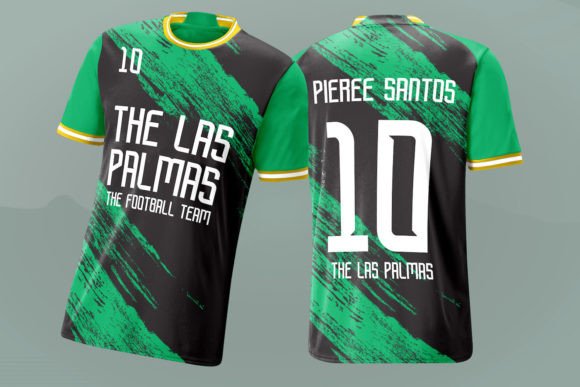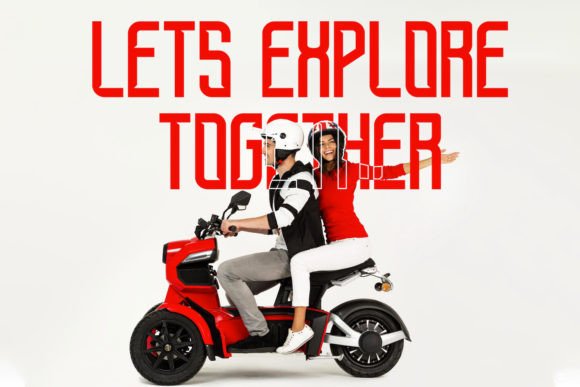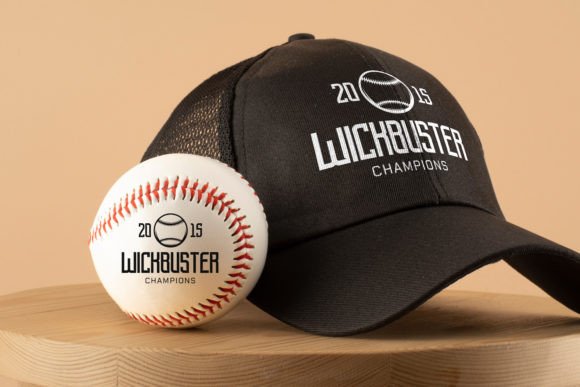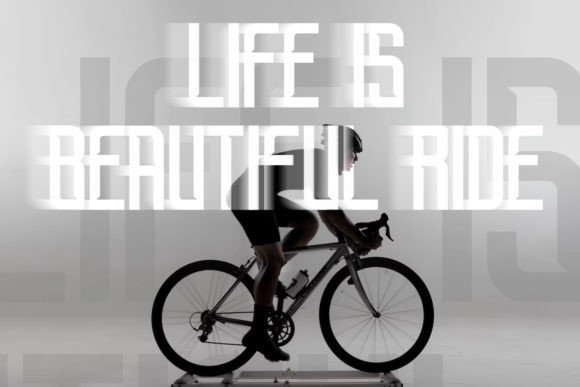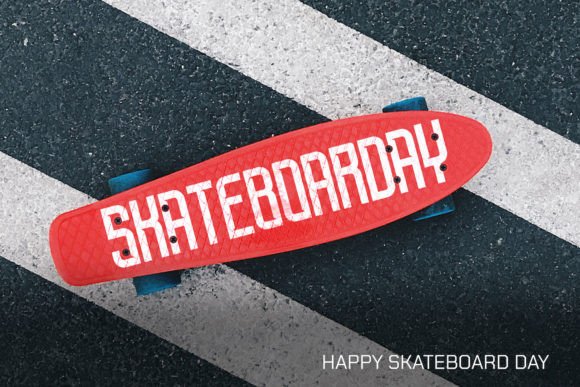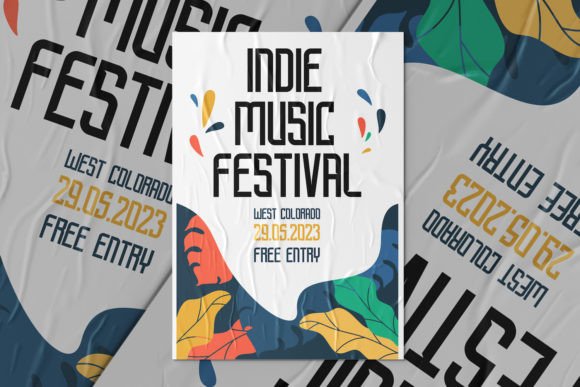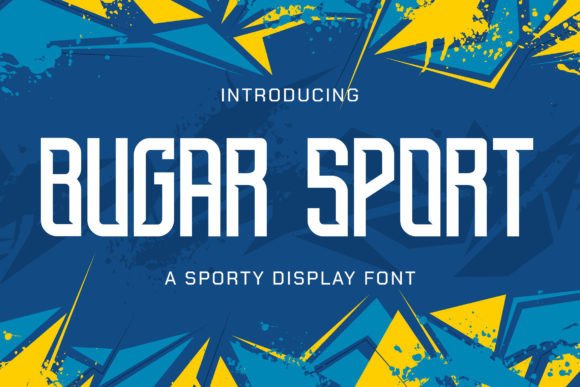
Introducing Bugar Sport – The Ultimate Sporty Display Font
In the world of design, fonts play a crucial role in conveying the message and tone of a project. For sports-related designs, a font that exudes energy, dynamism, and modernity is essential. This is where Bugar Sport comes in – a sporty and modern display font designed to make your designs stand out. In this article, we’ll explore the features, benefits, and uses of Bugar Sport, the perfect font for sports enthusiasts and designers alike.
What is Bugar Sport?
Bugar Sport is a playfully conceptual typeface font that boasts a sporty and modern aesthetic. Its unique design makes it an excellent choice for a wide range of contexts, from sports branding and advertising to digital media and print materials. This font is specifically crafted to capture the essence of sports, making it an ideal fit for football, basketball, soccer, and other sports-related purposes.
Key Features of Bugar Sport
- Sporty and Modern Design: Bugar Sport’s design is inspired by the world of sports, making it perfect for projects that require a dynamic and energetic feel.
- High Versatility: This font is suitable for various design applications, including logos, titles, headings, and more.
- Playful Concept: Bugar Sport’s playful concept sets it apart from other fonts, making it an excellent choice for designs that require a touch of personality.
- Easy to Read: Despite its sporty design, Bugar Sport remains easy to read, ensuring that your message is conveyed effectively.
Benefits of Using Bugar Sport
Using Bugar Sport in your designs offers several benefits, including:
- Instant Recognition: Bugar Sport’s unique design makes it instantly recognizable, helping your brand or project stand out from the competition.
- Emotional Connection: The font’s sporty and energetic vibe helps create an emotional connection with your audience, perfect for sports-related designs.
- Flexibility: Bugar Sport’s versatility allows you to use it across various design platforms, from digital media to print materials.
- Time-Saving: With Bugar Sport, you can save time and effort in finding the perfect font for your sports-related designs.
Use Cases for Bugar Sport
Bugar Sport is an excellent choice for various design projects, including:
- Sports Branding: Create a strong brand identity with Bugar Sport’s sporty and modern design.
- Advertising: Use Bugar Sport in your ad campaigns to grab attention and convey energy.
- Digital Media: Bugar Sport is perfect for social media graphics, videos, and other digital content.
- Print Materials: Use Bugar Sport in brochures, posters, and flyers to add a touch of sportsmanship.
Tips for Using Bugar Sport Effectively
To get the most out of Bugar Sport, follow these tips:
- Pair with Complementary Fonts: Combine Bugar Sport with complementary fonts to create visual interest and hierarchy.
- Experiment with Colors: Try different color schemes to enhance the font’s sporty and energetic vibe.
- Use it Boldly: Don’t be afraid to use Bugar Sport in bold and large sizes to make a statement.
Bugar Sport is a game-changing font for designers and sports enthusiasts alike. Its sporty and modern design, versatility, and playful concept make it an excellent choice for various design projects. Whether you’re creating a brand identity, advertising campaign, or digital content, Bugar Sport is sure to elevate your designs and convey the energy and dynamism of sports.
In conclusion, Bugar Sport is an exceptional font that can add a touch of sportsmanship to your designs. With its unique features, benefits, and use cases, it’s an excellent addition to any designer’s toolkit. So, what are you waiting for? Get creative with Bugar Sport and take your designs to the next level!